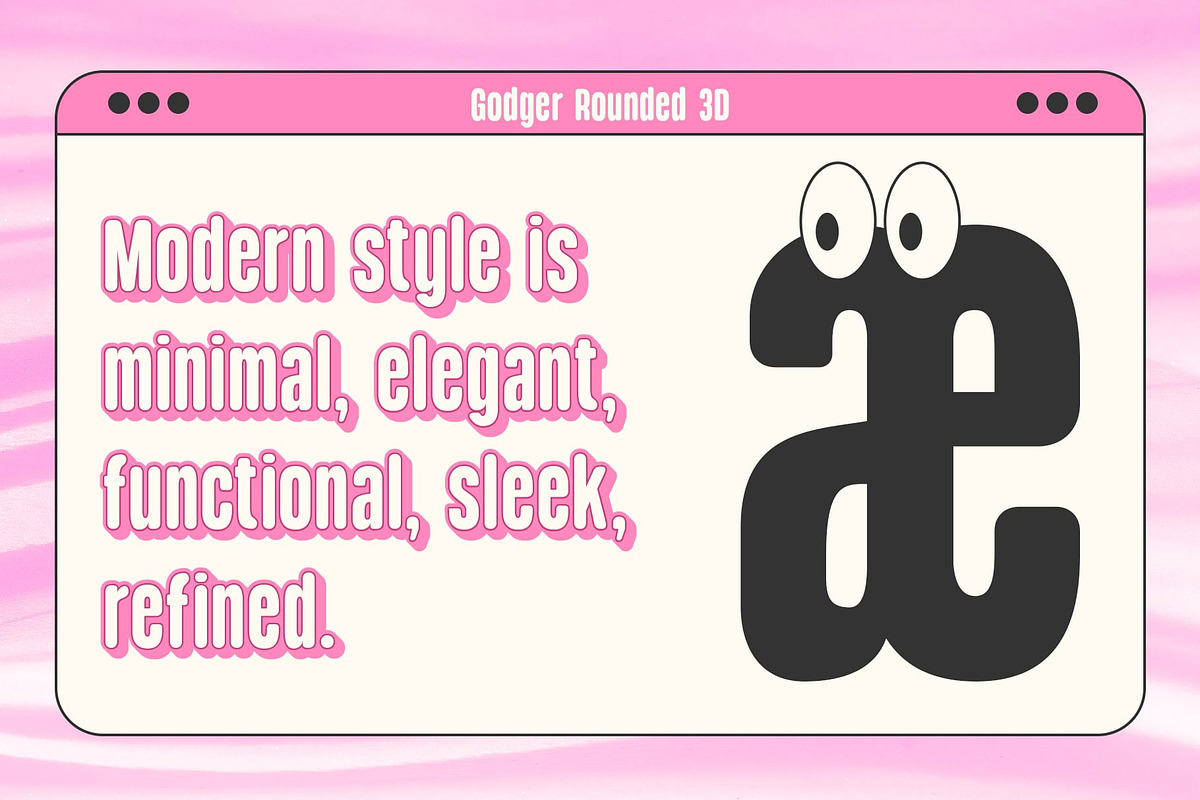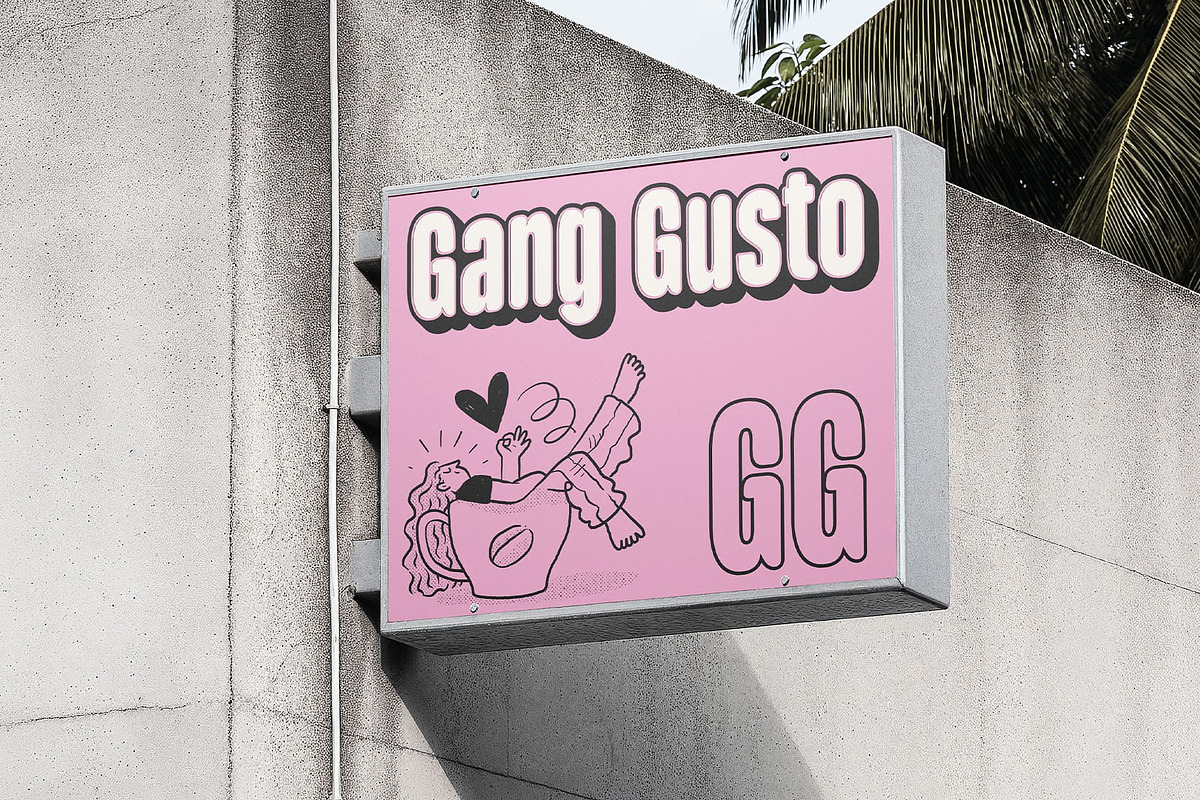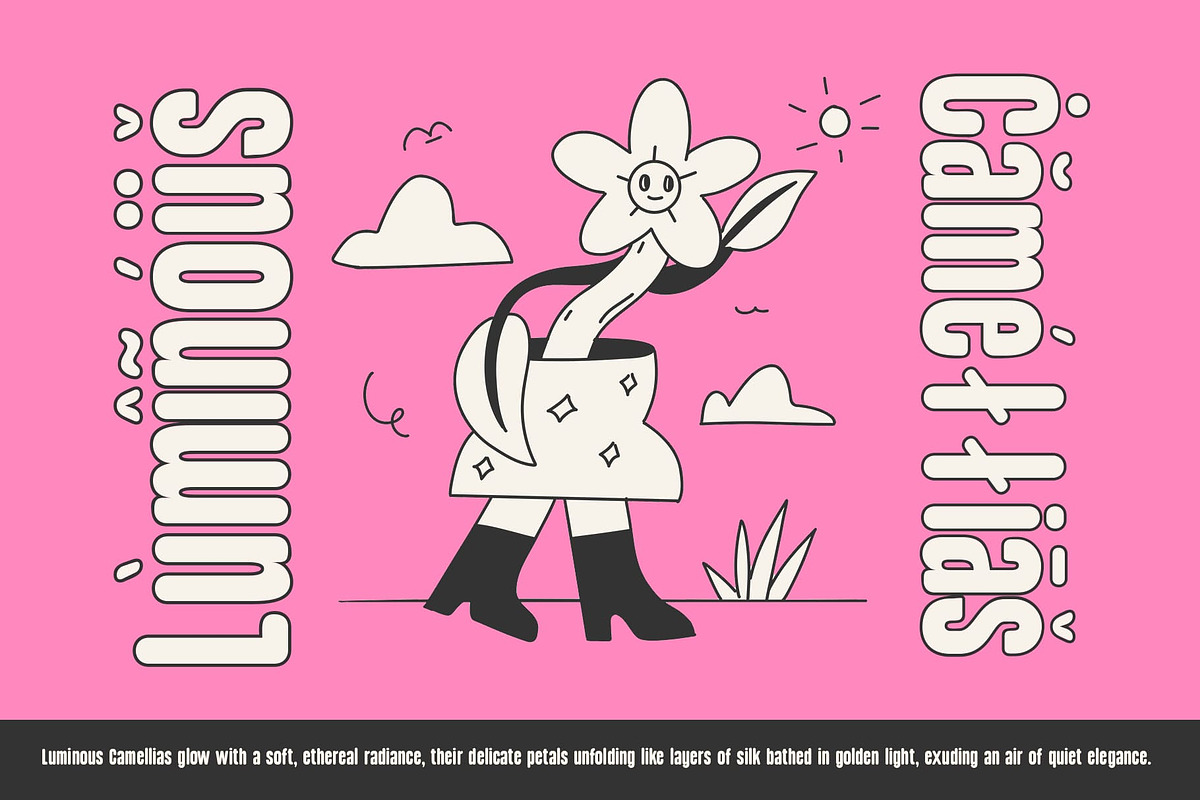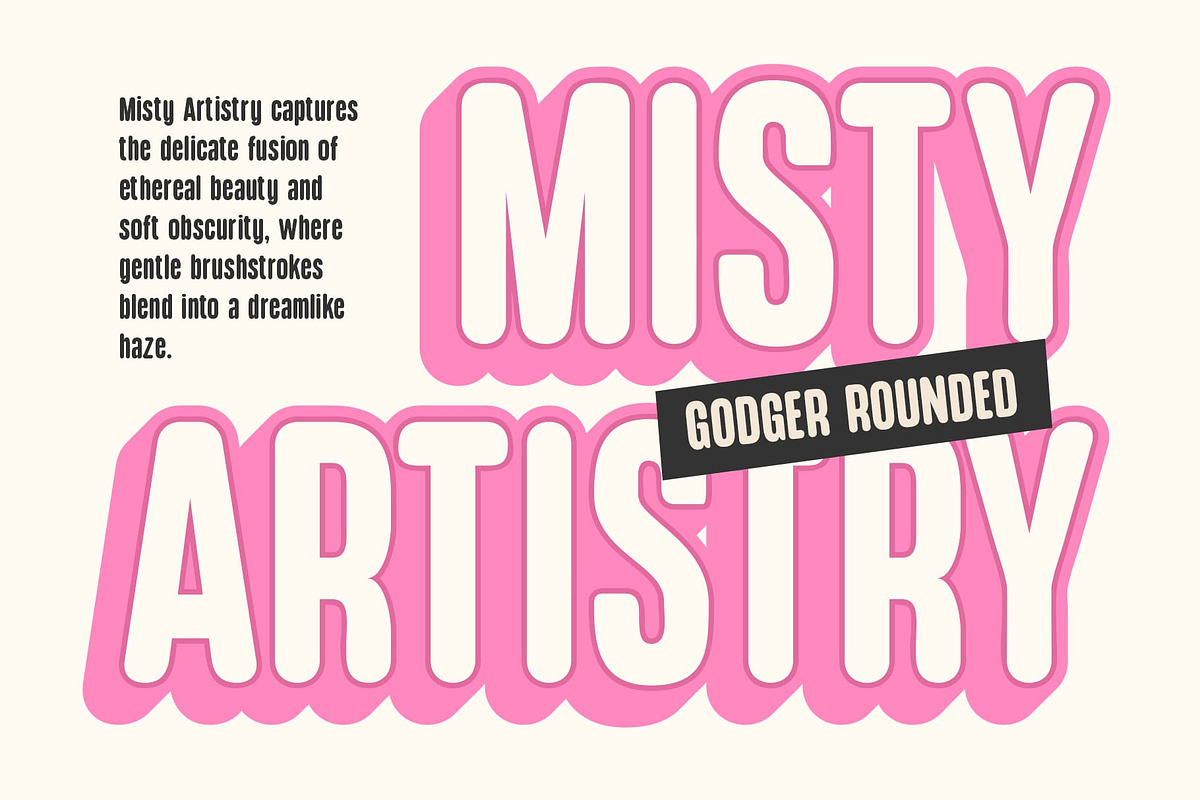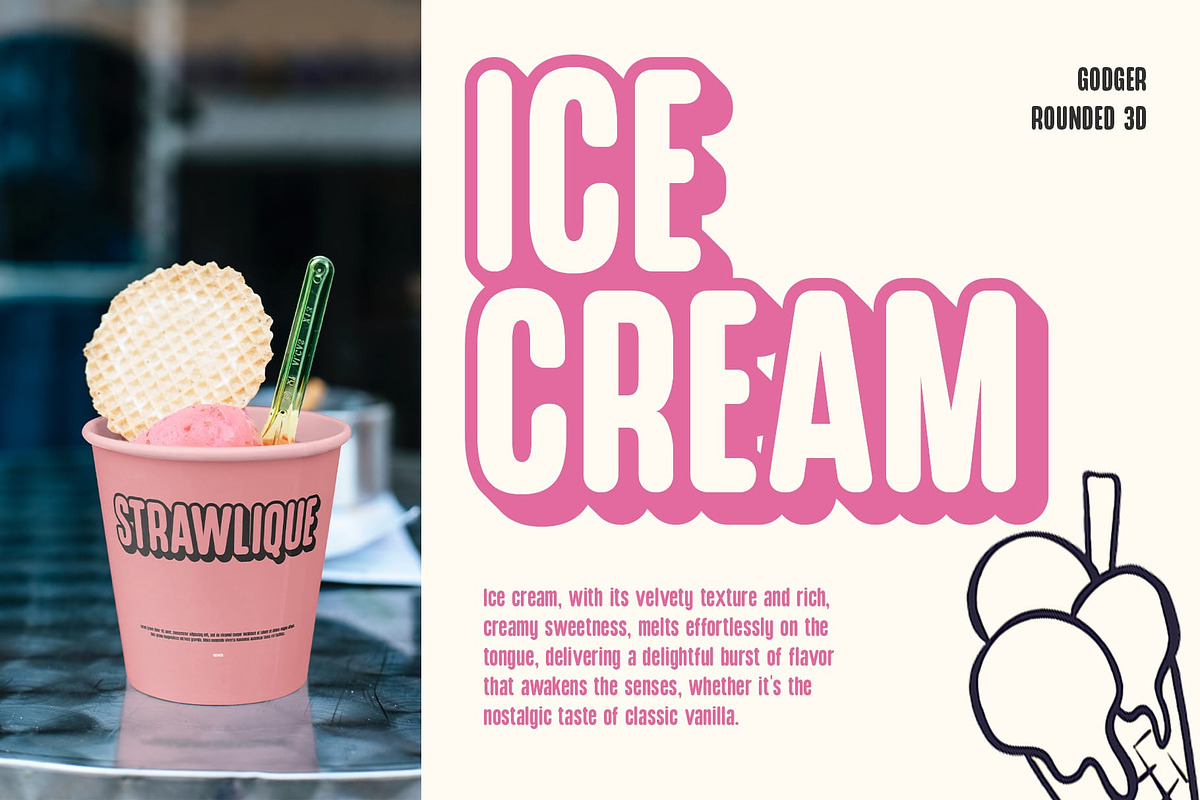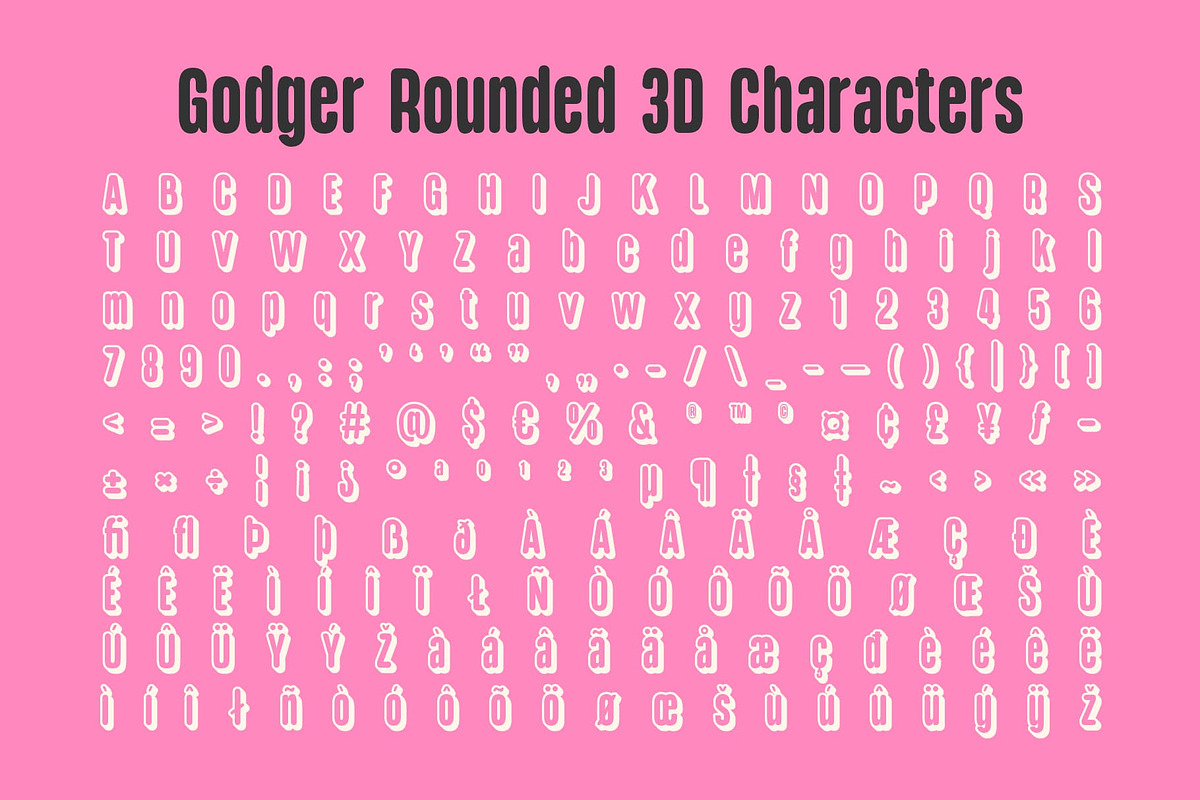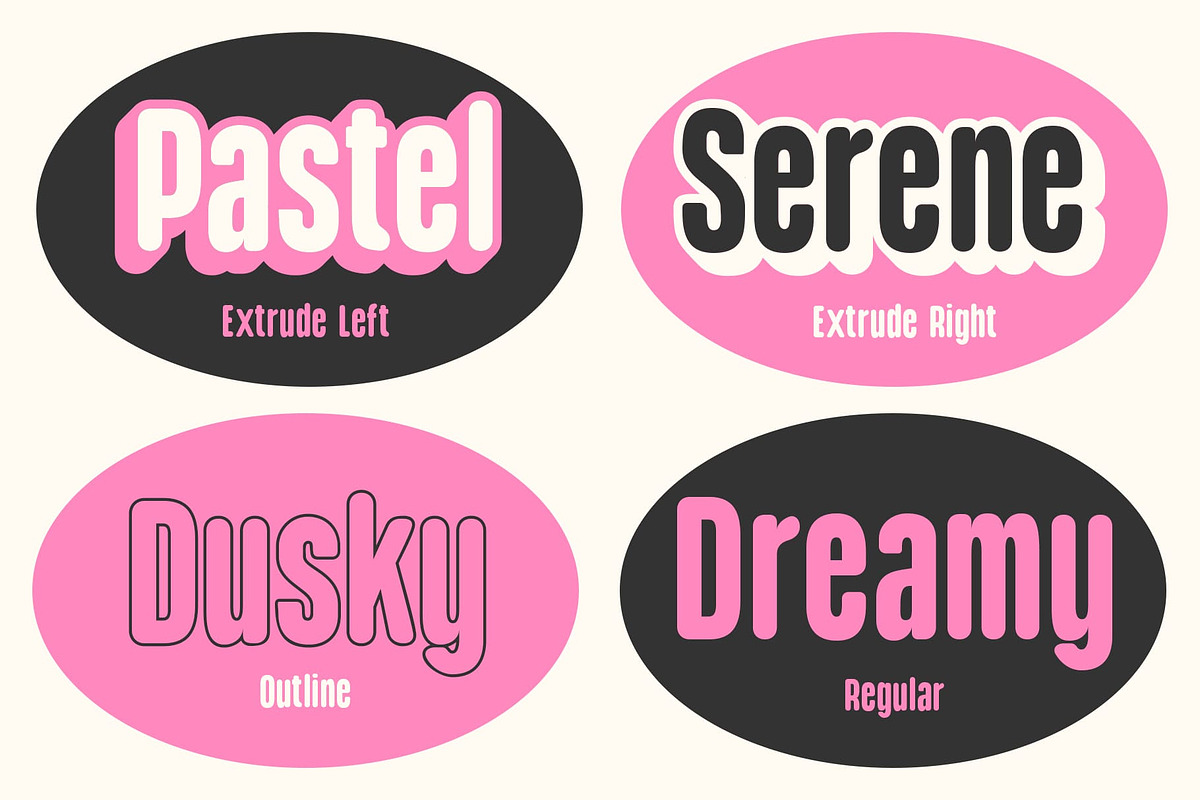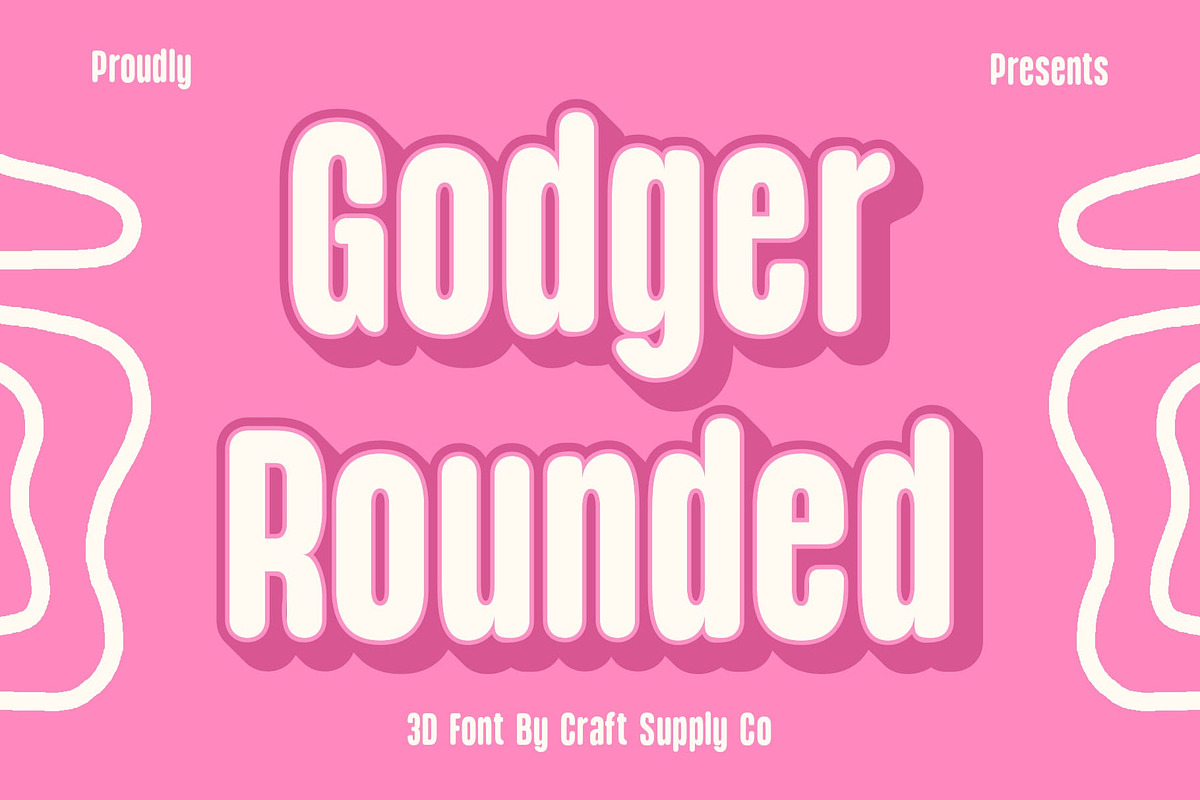
Godger Rounded 3D
Godger Rounded 3D: Bold, Playful, and Dimensional
Modern Sans-Serif with a Rounded, Bold Aesthetic Godger Rounded 3D is a modern sans-serif font designed with smooth rounded edges, bold letterforms, and a condensed structure. This combination creates a friendly yet powerful look, making it a versatile choice for contemporary designs. Its sleek yet approachable style ensures readability while maintaining a strong visual impact.
Striking 3D Effect for Added Depth With a built-in 3D effect, Godger Rounded 3D delivers a dynamic and eye-catching presence. The dimensional detail adds depth and realism, making each letter appear bold and engaging. This effect enhances the font’s versatility, making it perfect for headline designs, logos, and attention-grabbing visuals.
Ideal for Futuristic and Playful Designs Balancing a modern aesthetic with a fun and futuristic touch, this font is ideal for projects that require a contemporary yet inviting feel. Whether you’re working on branding, advertising, UI/UX design, or product packaging, its rounded and bold style makes it suitable for a wide range of creative applications.
Versatile for Bold and Engaging Typography Godger Rounded 3D is perfect for posters, merchandise, gaming graphics, and tech-based designs, where a clean yet playful appearance is needed. Its strong, structured shape combined with soft curves creates a perfect harmony between confidence and approachability, making it a standout choice for designers looking to push creative boundaries.